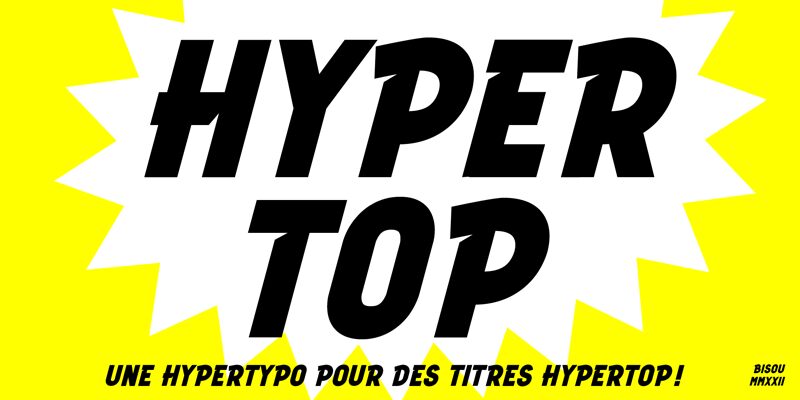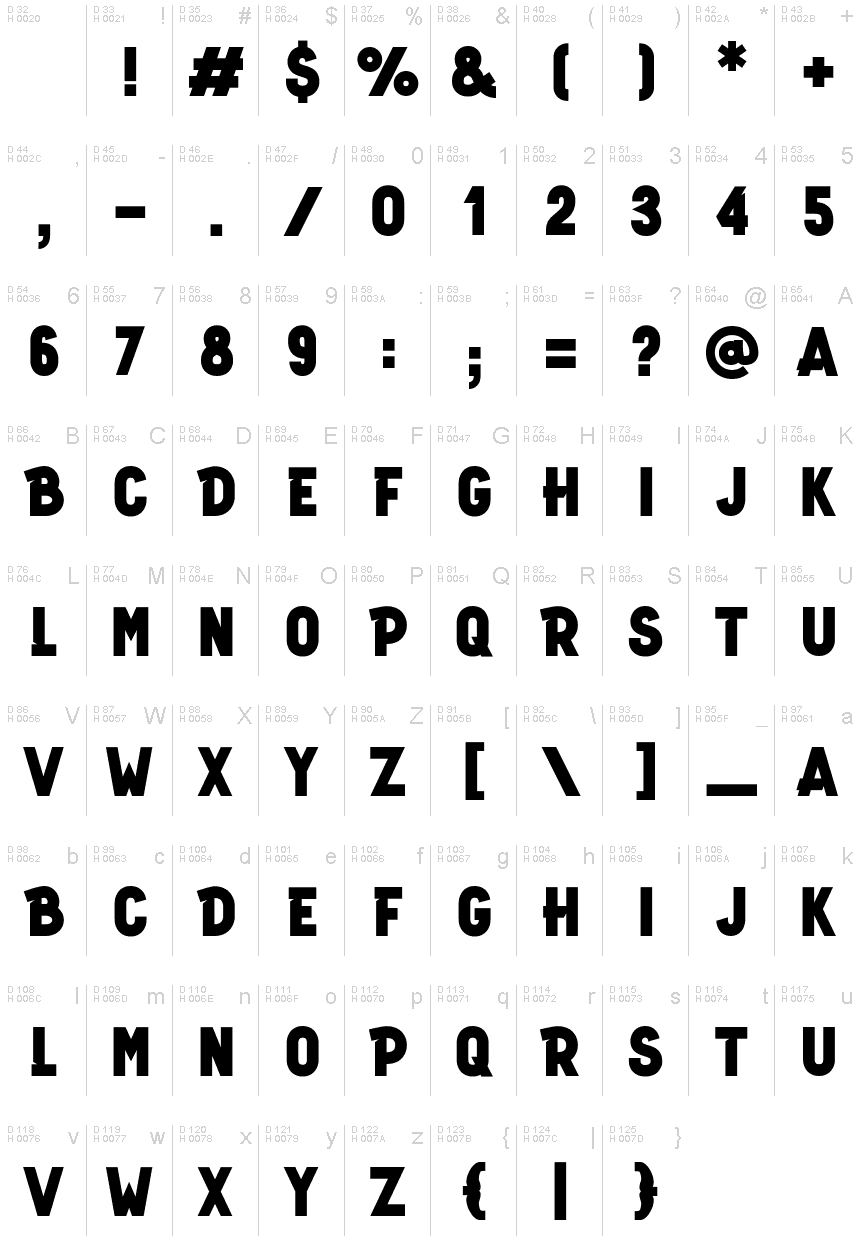
HyperTop
HyperTop, crafted by the imaginative Bisou, stands out as a bold display font with a semi-condensed width that carries an undeniable presence. Its robust weight and assertive structure give it a commanding visual impact that is sure to capture attention. The unique characteristics of HyperTop lie in its ability to combine strength with sophistication, making it an excellent choice for branding projects, poster designs, and any creative endeavor requiring a touch of modernity and confidence.
With its distinct style and powerful aesthetic appeal, HyperTop is poised to elevate the visual narrative of diverse design applications.